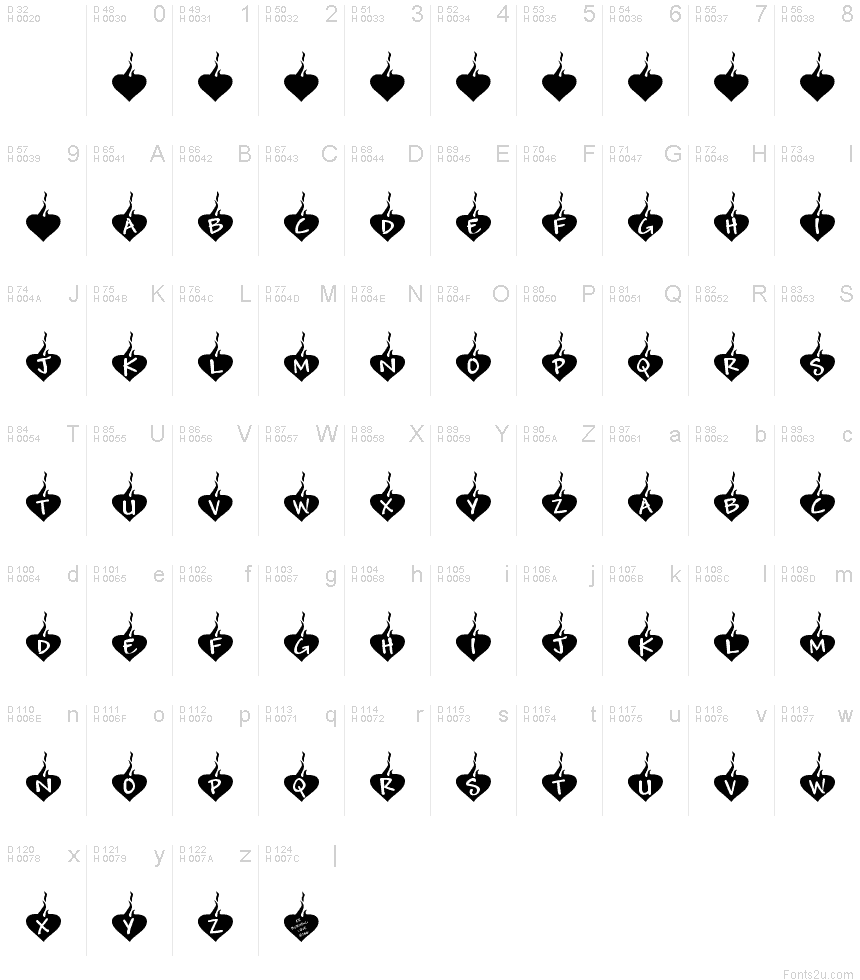
KR Burning Love by Kat is a free illustrated heart display font, built from rounded heart emblems with hand-drawn letters cut into their centers. Wispy flames rise from each form. The uneven strokes keep the lettering personal and lightly mischievous rather than polished.
A gift shop, candy brand, or Valentine's event could use it for packaging and posters that lean into playful romance. It also belongs in party invitations and novelty merchandise, where the repeated burning-heart motif turns each letter into part of the theme.